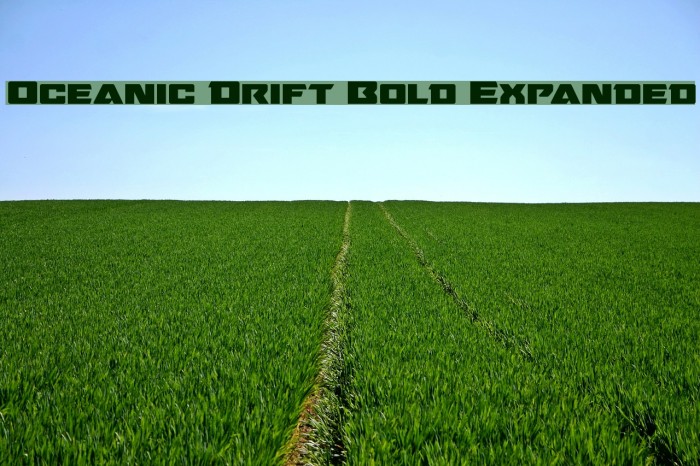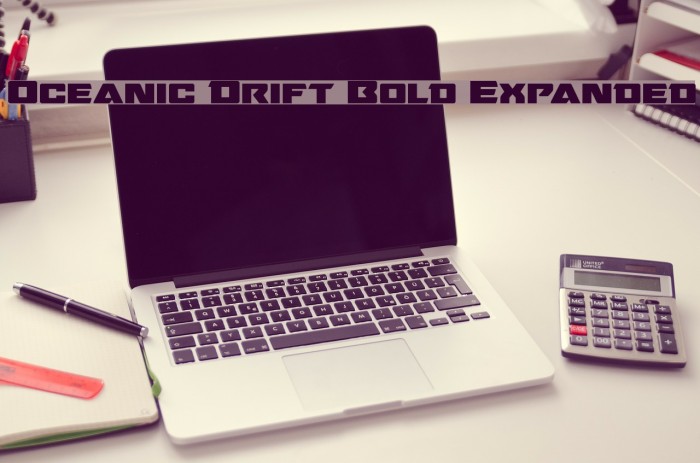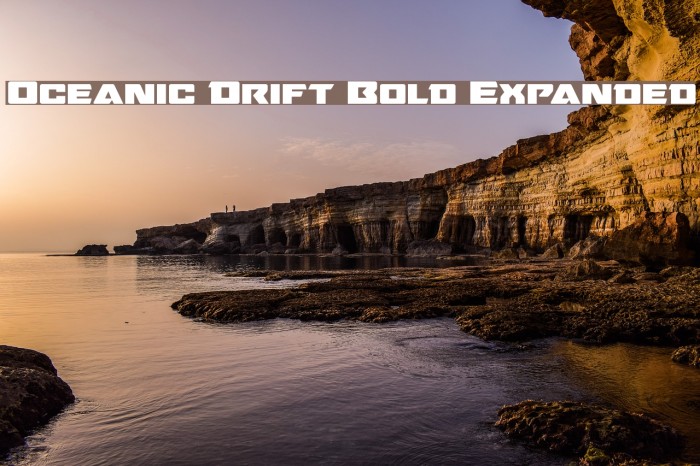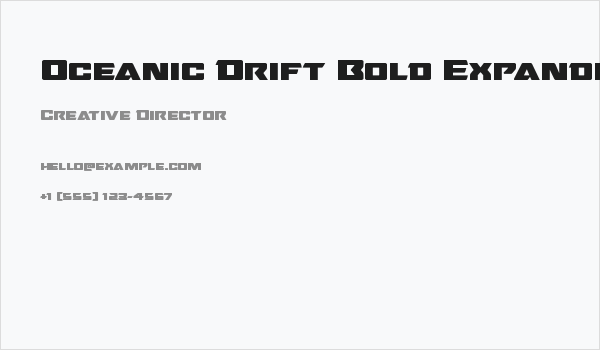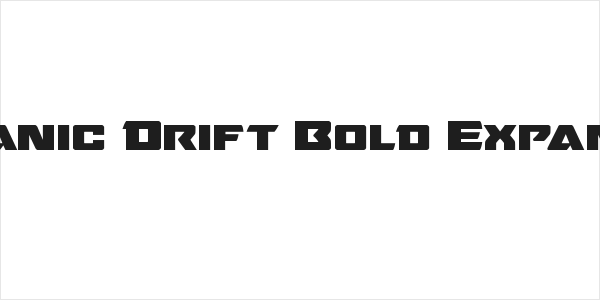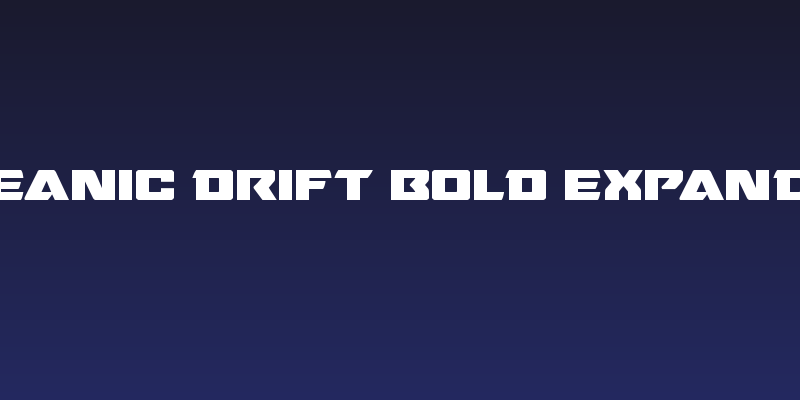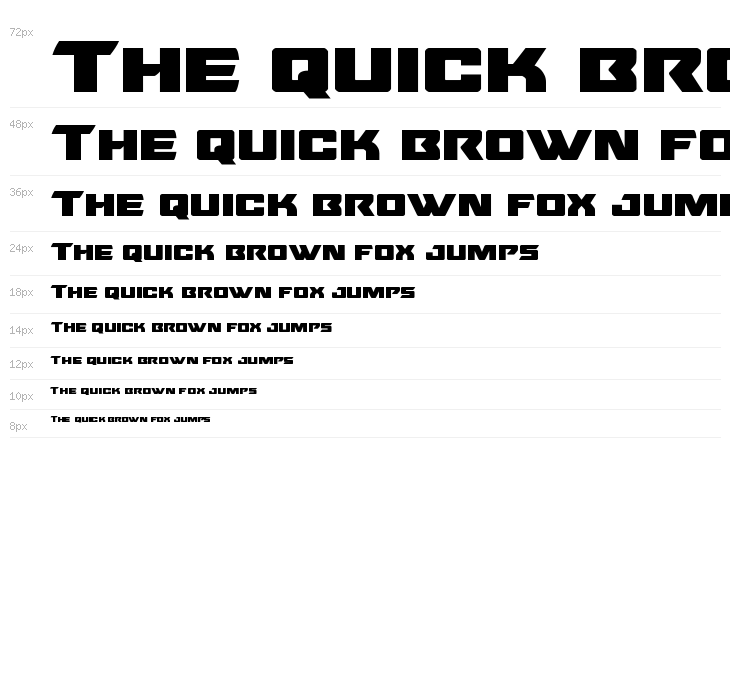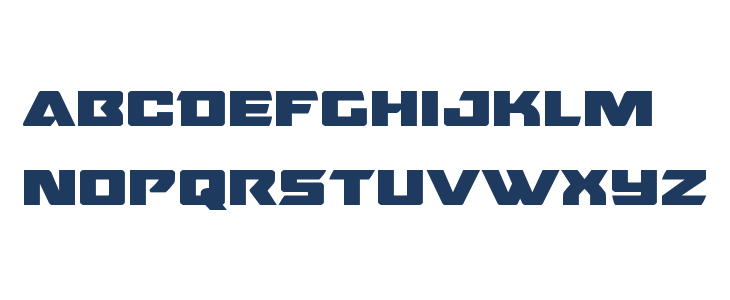
Oceanic Drift Bold Expanded Font
Oceanic Drift Bold Expanded Description
This font features a bold and expanded style with a strong, impactful presence. The characters are designed with a geometric and angular aesthetic, giving them a modern and futuristic feel. The uppercase letters are particularly striking, with sharp edges and a consistent weight throughout. The numbers and special characters maintain the same boldness, ensuring uniformity across all elements. This font is ideal for making a statement, with its wide letterforms and high contrast between strokes. It is well-suited for attention-grabbing headlines or logos that require a contemporary and assertive look.
| Proposed Projects | Ideal for branding, advertising, posters, and any project requiring a strong visual impact. |